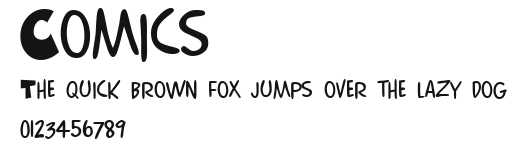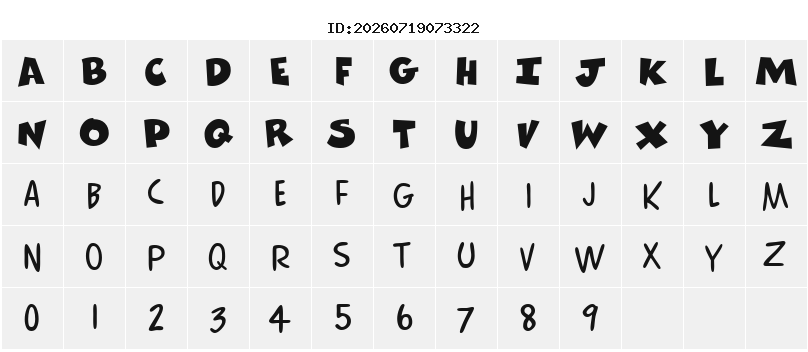
• Font Name: Comics
• Full Font Name: Comics Regular
About Comics.ttf
Comics.ttf is a modern, elegant sans-serif font designed for ultimate readability and visual harmony. Perfect for branding, headlines, web design, and print materials.